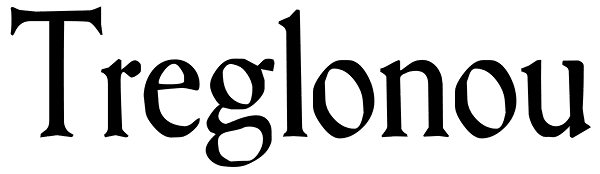
Treglonou
Treglonou is a handsome, classical text font, derived from a design by Ernst Schneidler, but with added characters and some customizations to make it more valuable to contemporary users and better suited to the digital format.